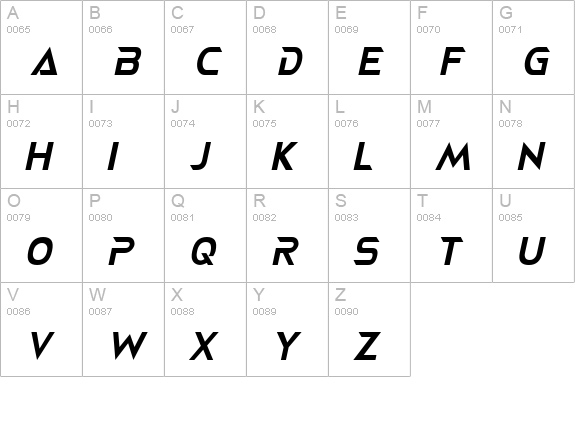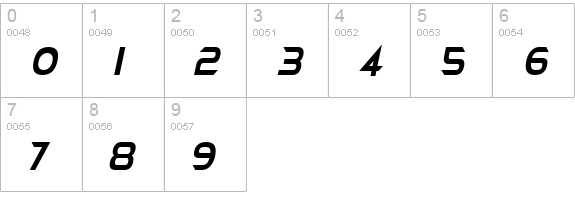
NEOTERIQUE Italic is a distinctive, italic variant in the NEOTERIQUE typeface family \xE2\x80\x94 well suited to design and typography projects.
NEOTERIQUE Italic is a stunning and sophisticated font that effortlessly combines modernity with elegance. Its sleek and stylish design makes it perfect for a wide range of creative projects, such as logos, branding materials, book covers, and more. The italicized letters exude a sense of movement and dynamism, adding a touch of flair to any design. The smooth and flowing curves of NEOTERIQUE Italic create a visually pleasing aesthetic that captivates the eye. Each letter is meticulously crafted to ensure seamless legibility, making it suitable for both large headlines and smaller body text. The font's versatility allows it to adapt to various design styles, from minimalist and contemporary to bold and expressive. One of the most remarkable aspects of NEOTERIQUE Italic is that it is freely available to download at FontsMarket.com. This means that designers and creatives can access this exceptional font without any cost, expanding their creative possibilities without breaking the bank. The ease of accessibility and the high-quality design make NEOTERIQUE Italic a must-have for any design enthusiast. Whether you're working on a personal project or a professional design, NEOTERIQUE Italic is the perfect choice to elevate your work to new heights. Its unique combination of modernity, elegance, and free accessibility sets it apart from other fonts, making it a standout option for designers who want to make a lasting impression. Download NEOTERIQUE Italic today and unlock a world of creative possibilities.